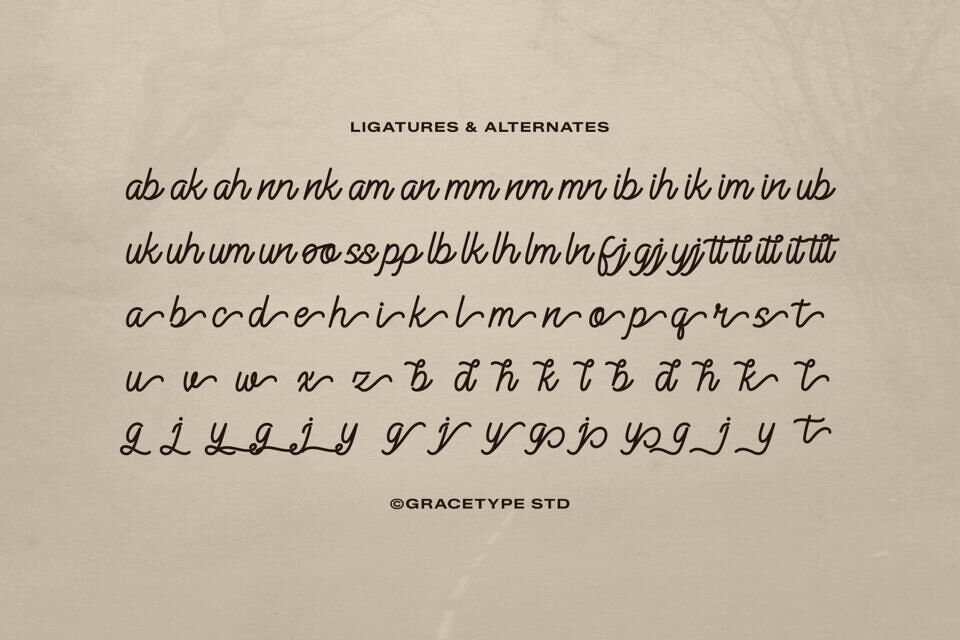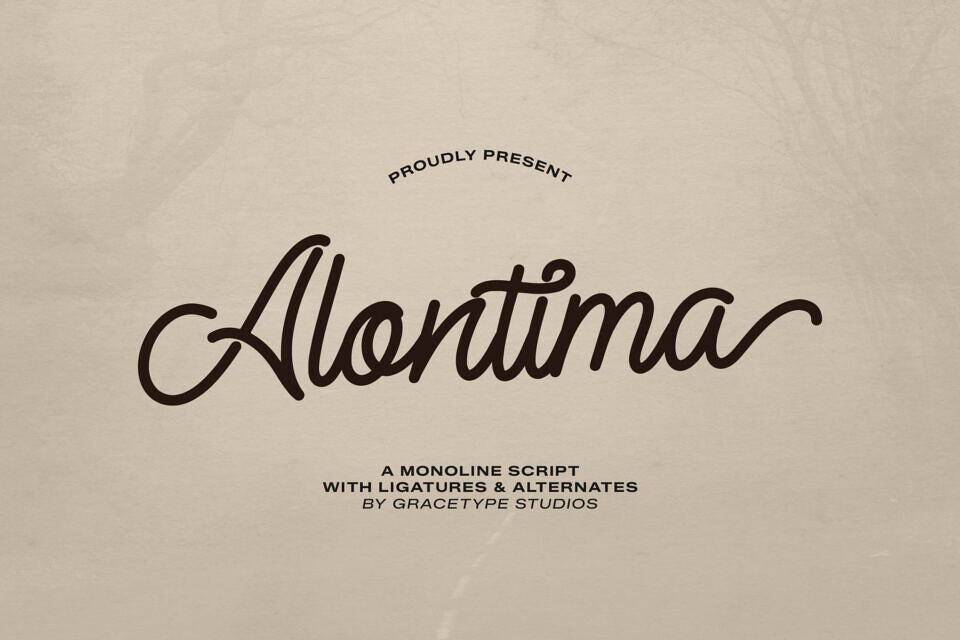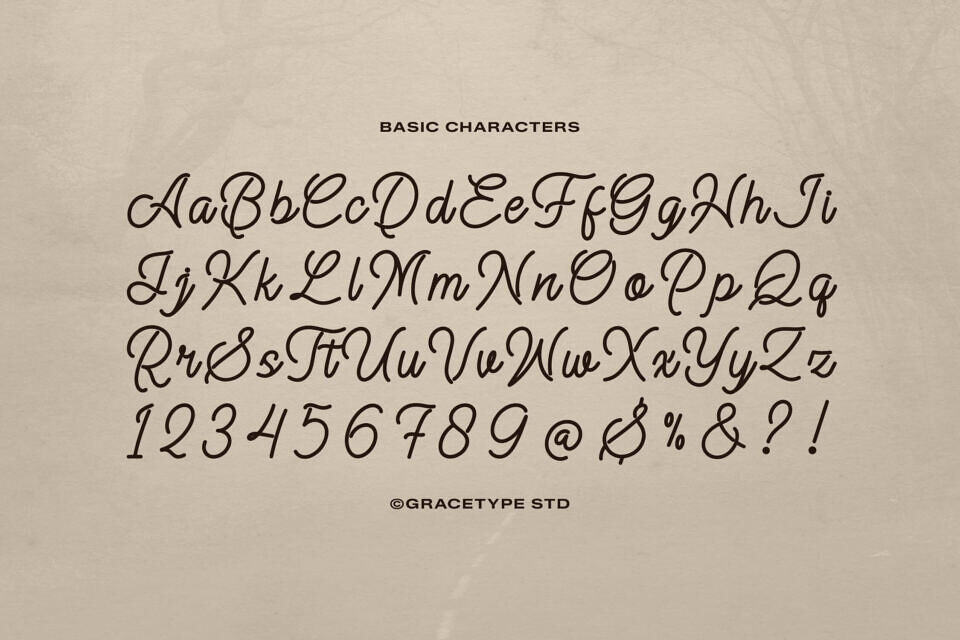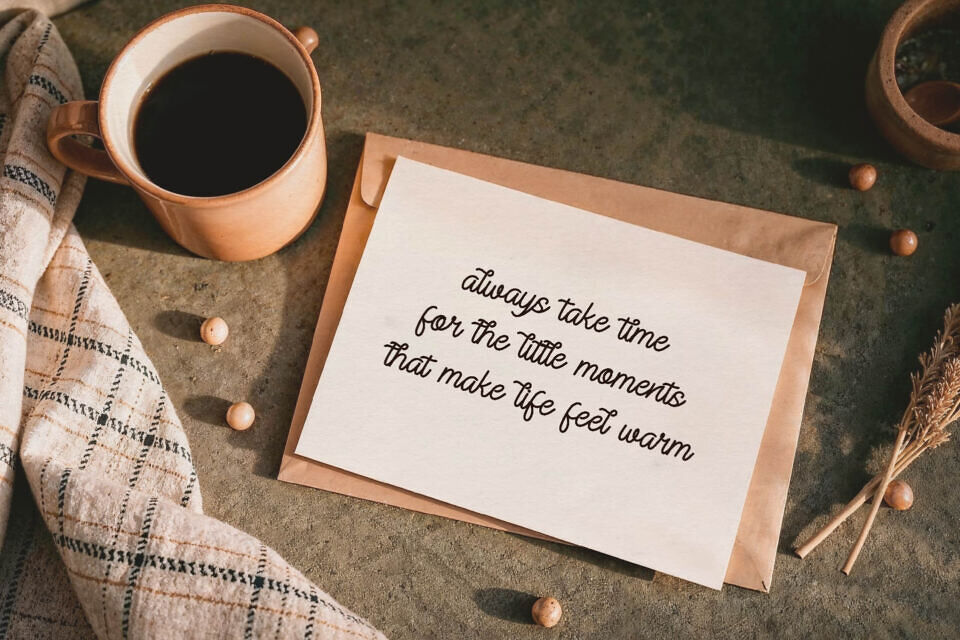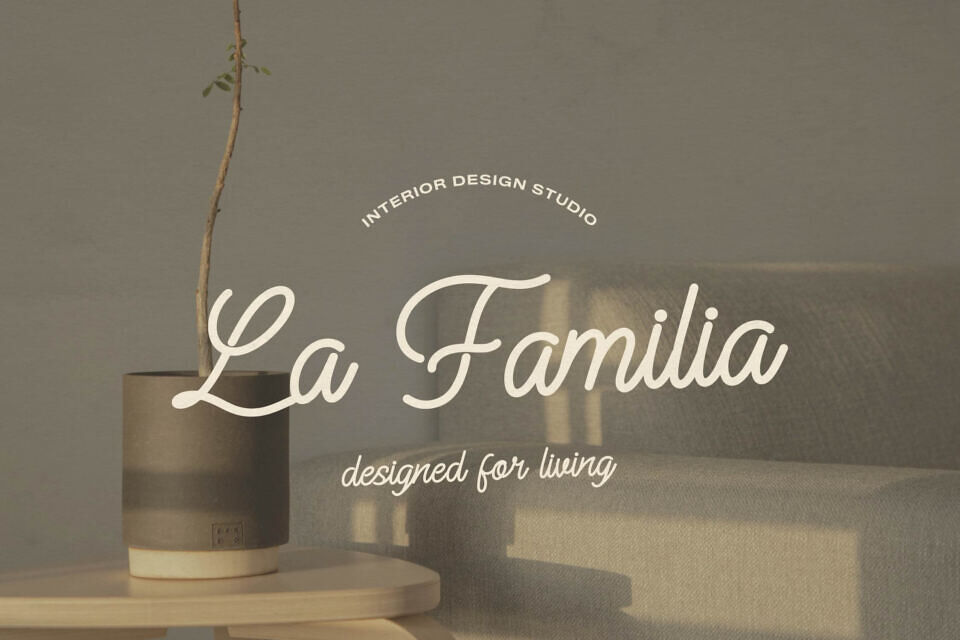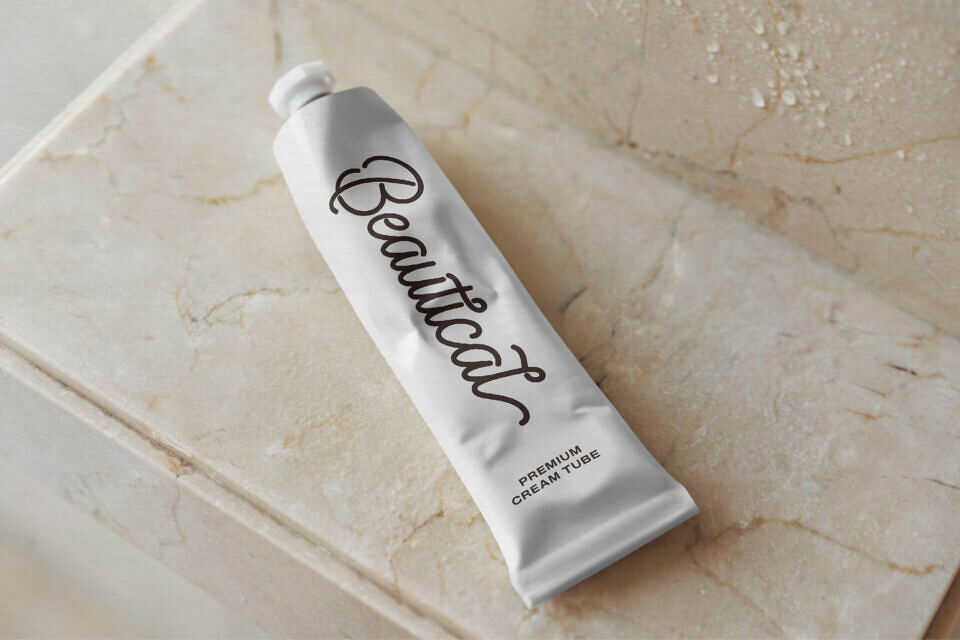
Alontima Font
Alontima is a sophisticated and fluid monoline script font that captures a contemporary calligraphic aesthetic. Produced by Gracetype Studios, the typeface is characterized by its consistent stroke weight and a rhythmic, sweeping visual flow.
Its defining creative hallmark is the use of elegant, interlocking swashes and extended terminal flourishes, which give the text a customized, artisanal signature quality. This font is a premier choice for upscale lifestyle branding, professional signature watermarks, elegant event stationery, and sophisticated editorial headers.